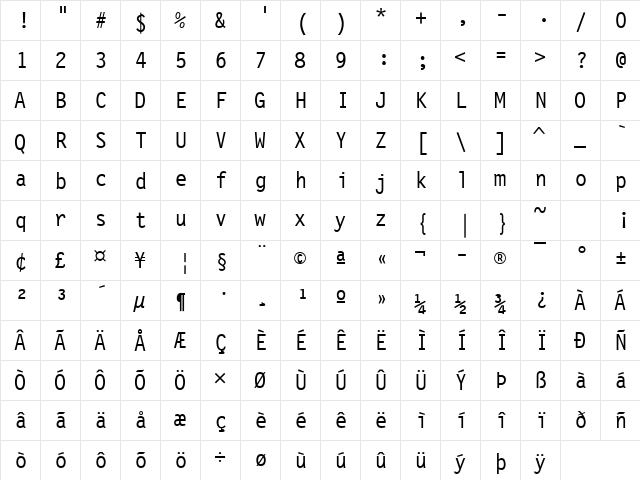
Financial Regular
Design Context for Financial Typeface
Financial is a composed and adaptable typeface that performs quietly and consistently across a wide range of design contexts.